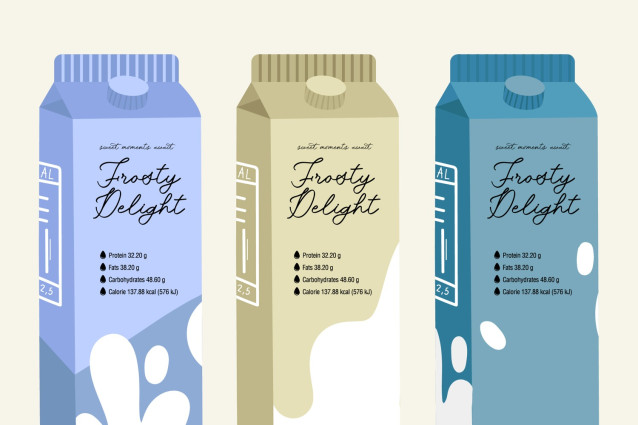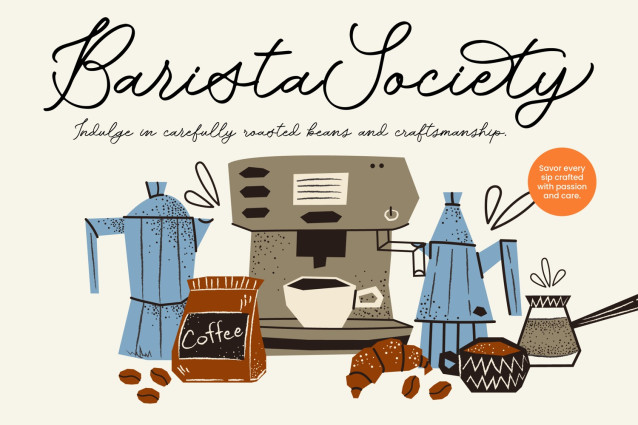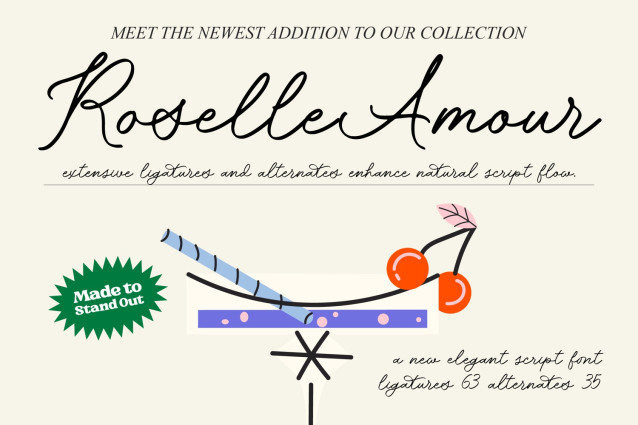
Roselle Amour Font
Roselle Amour Font – New Elegant Script Font captures a sophisticated aesthetic that balances handcrafted charm with modern luxury. This typeface is meticulously crafted to bring a high-end feel to any creative endeavor, ensuring your message is delivered with unmistakable elegance.Experience the seamless flow of authentic calligraphy through a rich collection of OpenType features. With 63 ligatures and 35 alternates, Roselle Amour – New Elegant Script Font offers an organic flow that mimics natural handwriting, making every word appear custom-made. These dynamic character sets allow designers to achieve a truly bespoke look that stands out in a crowded marketplace.